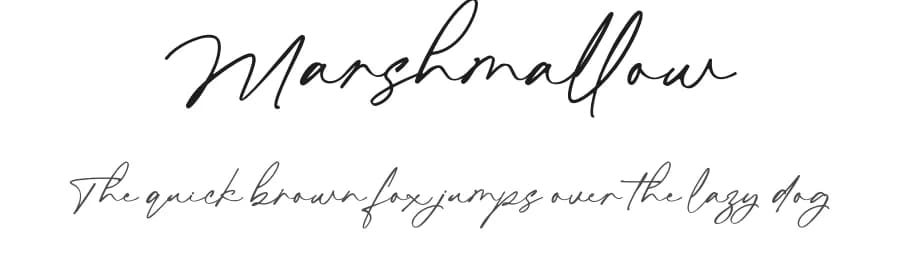
About Marshmallow Font
Marshmallow Specifications
| Font Family | Marshmallow |
| Full Name | Marshmallow |
| Version | 1.018 |
| Glyph Count | 190 glyphs |
| PostScript Name | MarshmallowRegular |
| Designer | Bayu Wibisono |
Marshmallow supports 168 languages.
Marshmallow Font is a script font that shines as a display or heading face. Pair it with a clean sans-serif or serif font for body text β the contrast creates a clear hierarchy while the two styles stay balanced and easy to read.
Marshmallow Font